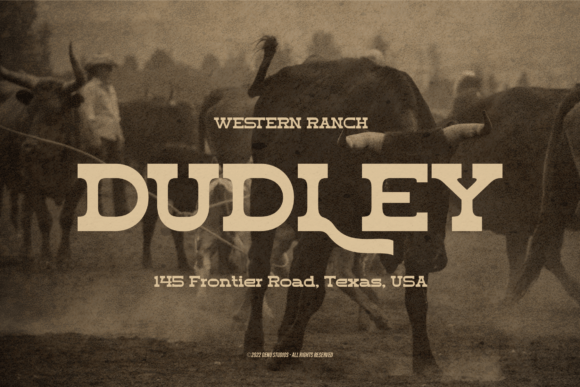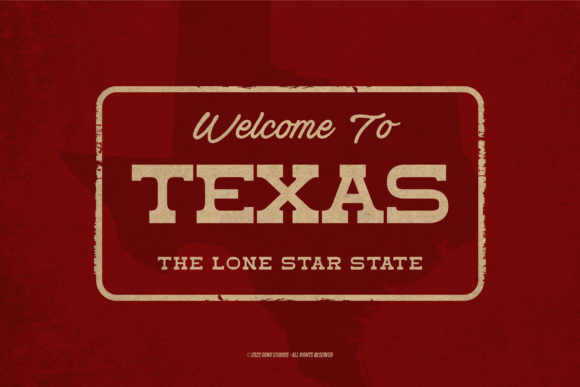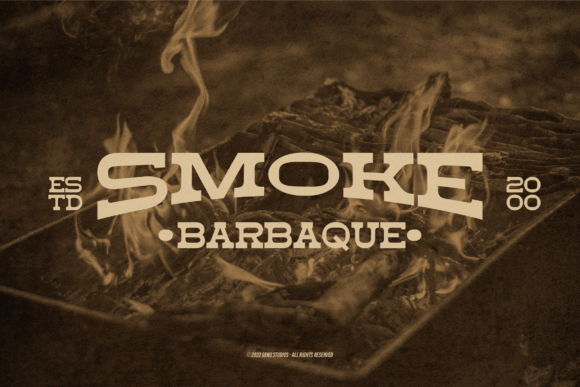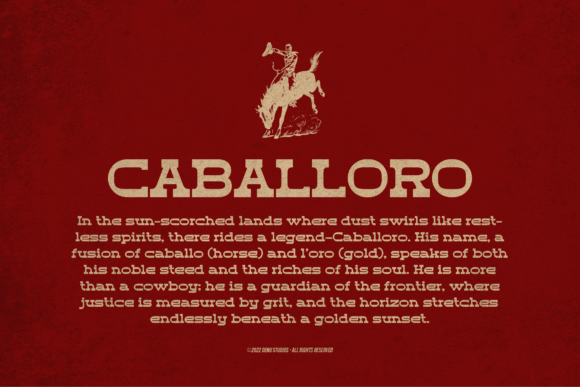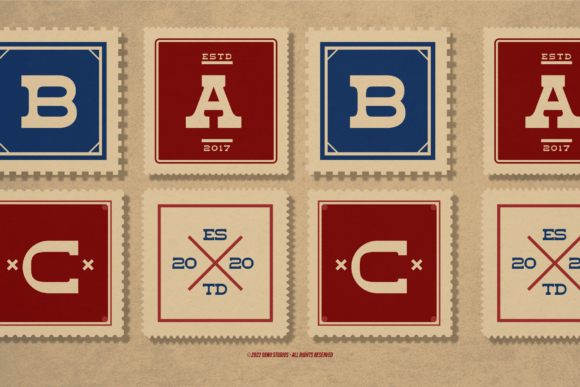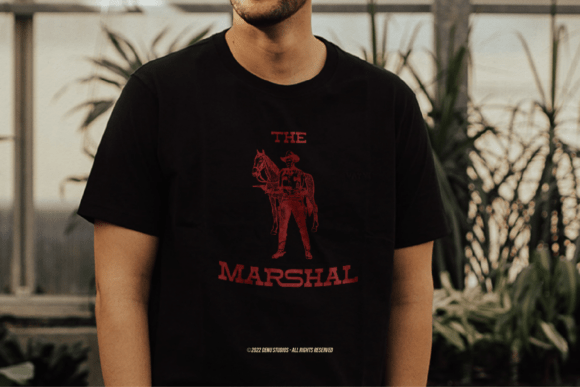
Introduction to Rusty Duty Font Font
Fonts play a crucial role in design, and the Rusty Duty Font font is a typeface that brings both character and versatility to any project. Whether you’re working on a branding project, a website, or a print design, the Rusty Duty Font font offers a unique style that can elevate your work.
Rusty Duty is a rugged slab serif font with a bold Western spirit.
Inspired by vintage Americana, this typeface brings a strong, masculine edge to headlines, posters, badges, and branding projects Its sturdy characters and distinctive serifs evoke the grit of the old frontier, perfect for rustic and adventure-themed designs.
Key Features of Rusty Duty Font Font
Why Choose Rusty Duty Font Font?
The Rusty Duty Font font is more than just a typeface – it’s a design tool that helps you communicate your message with style and clarity. Its unique character set and versatile design make it suitable for a wide range of applications, from elegant invitations to bold headlines.
With its carefully crafted letterforms and balanced proportions, the Rusty Duty Font font ensures readability and visual appeal across all mediums.
What makes Rusty Duty Font font special?
The Rusty Duty Font font stands out with its unique design, exceptional readability, and versatility across various design applications.